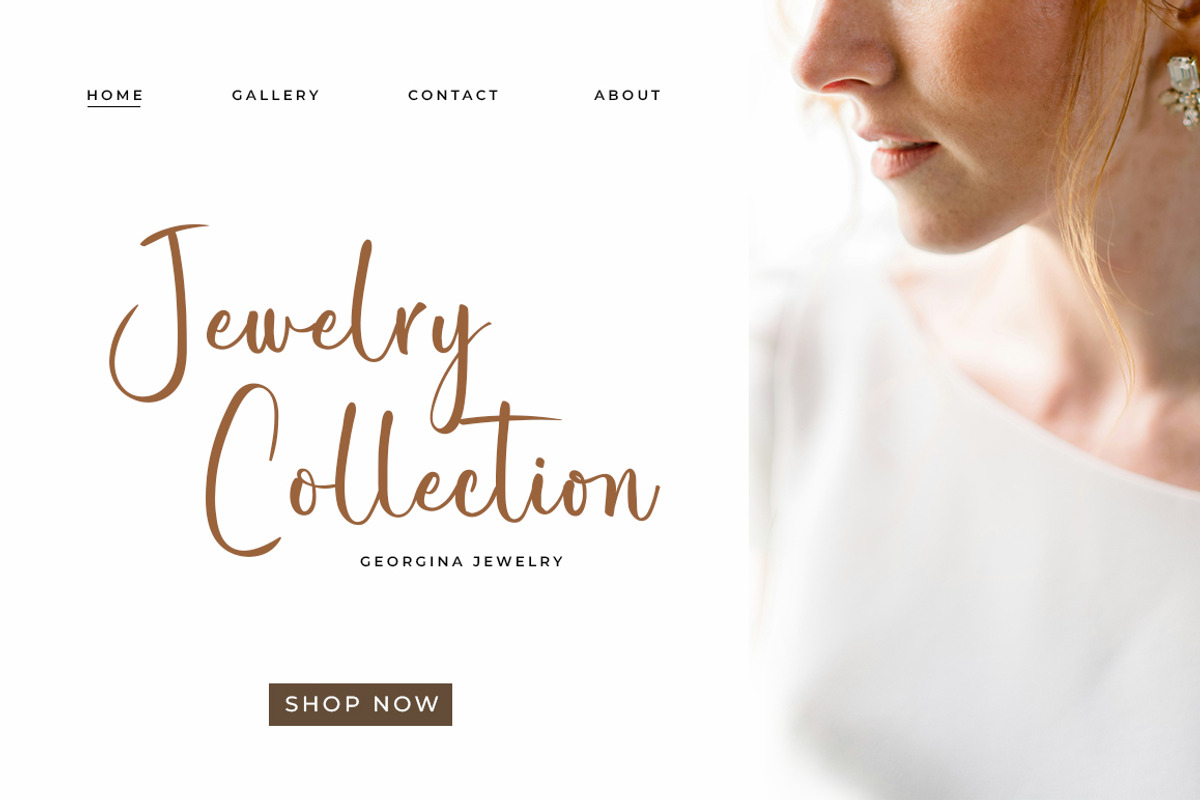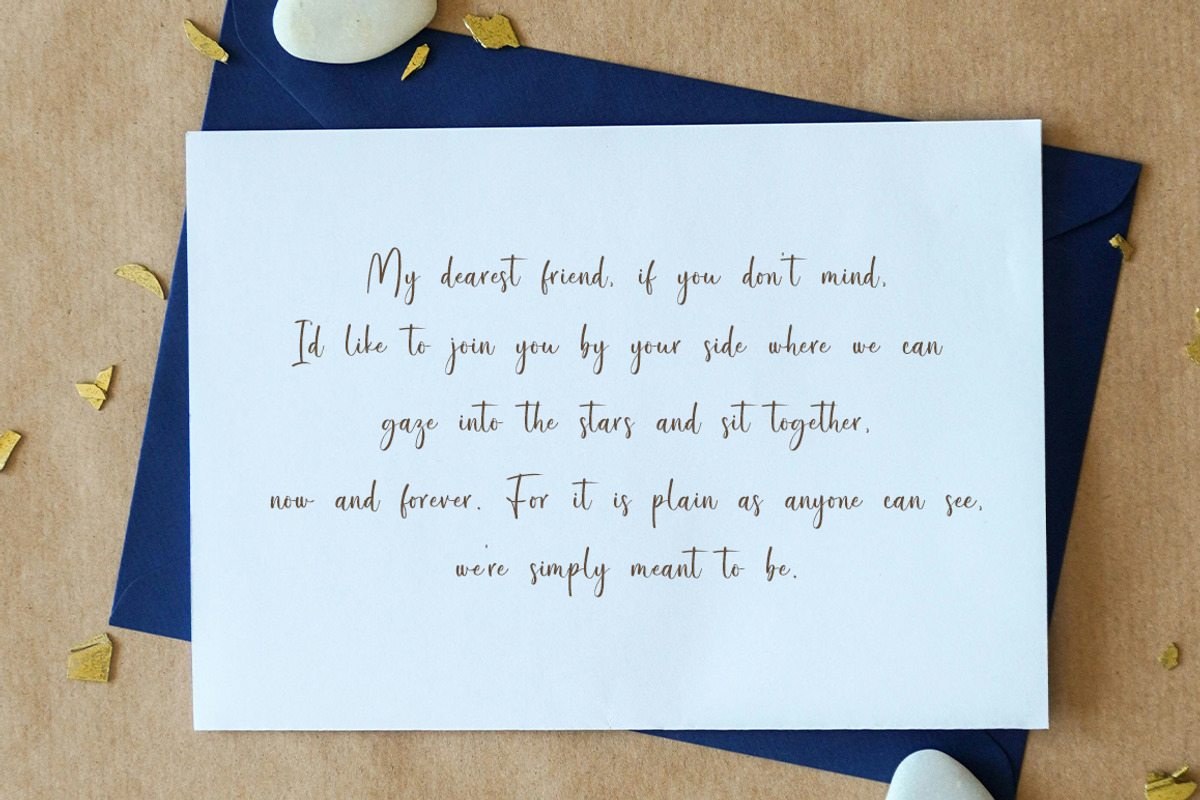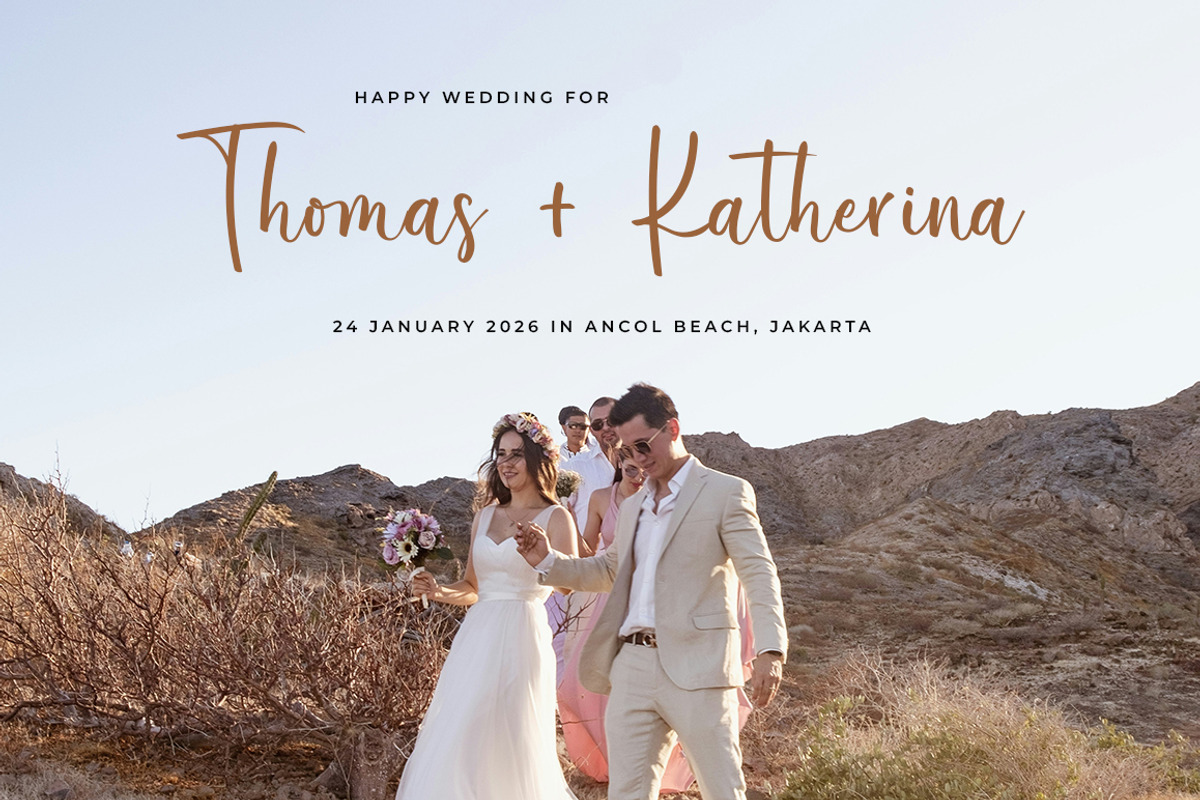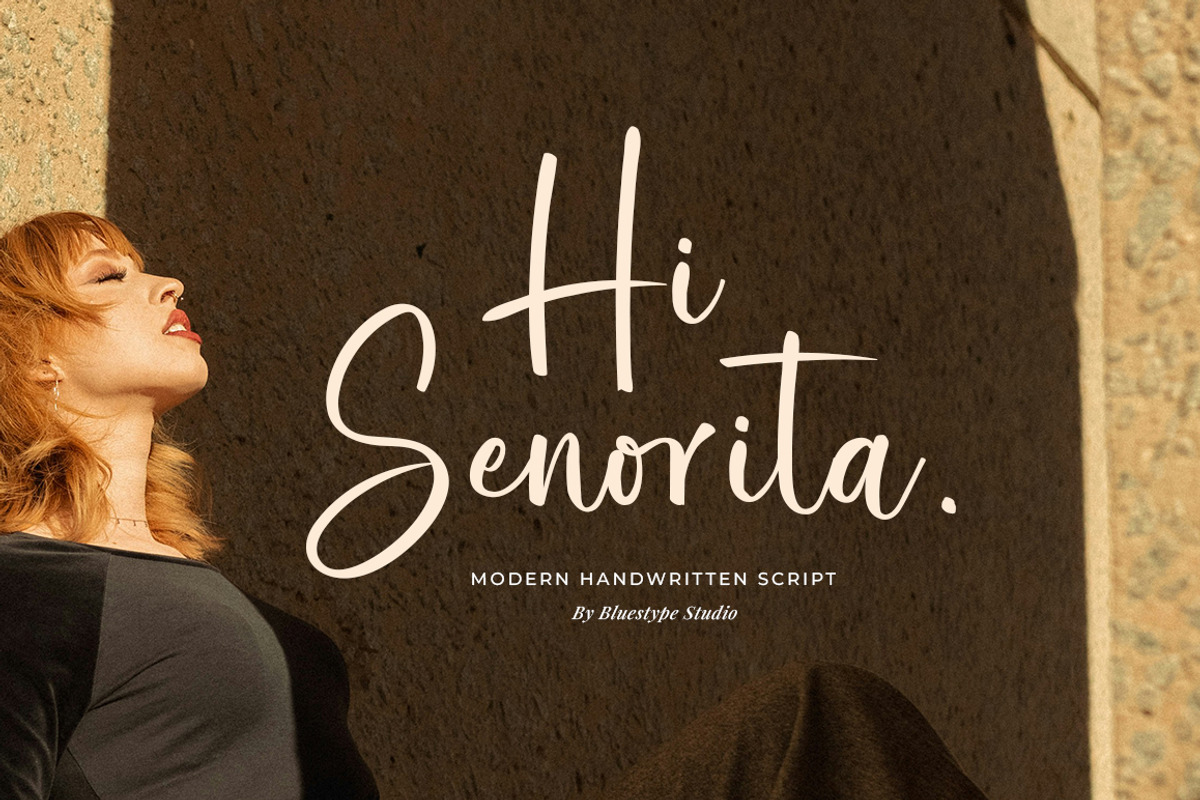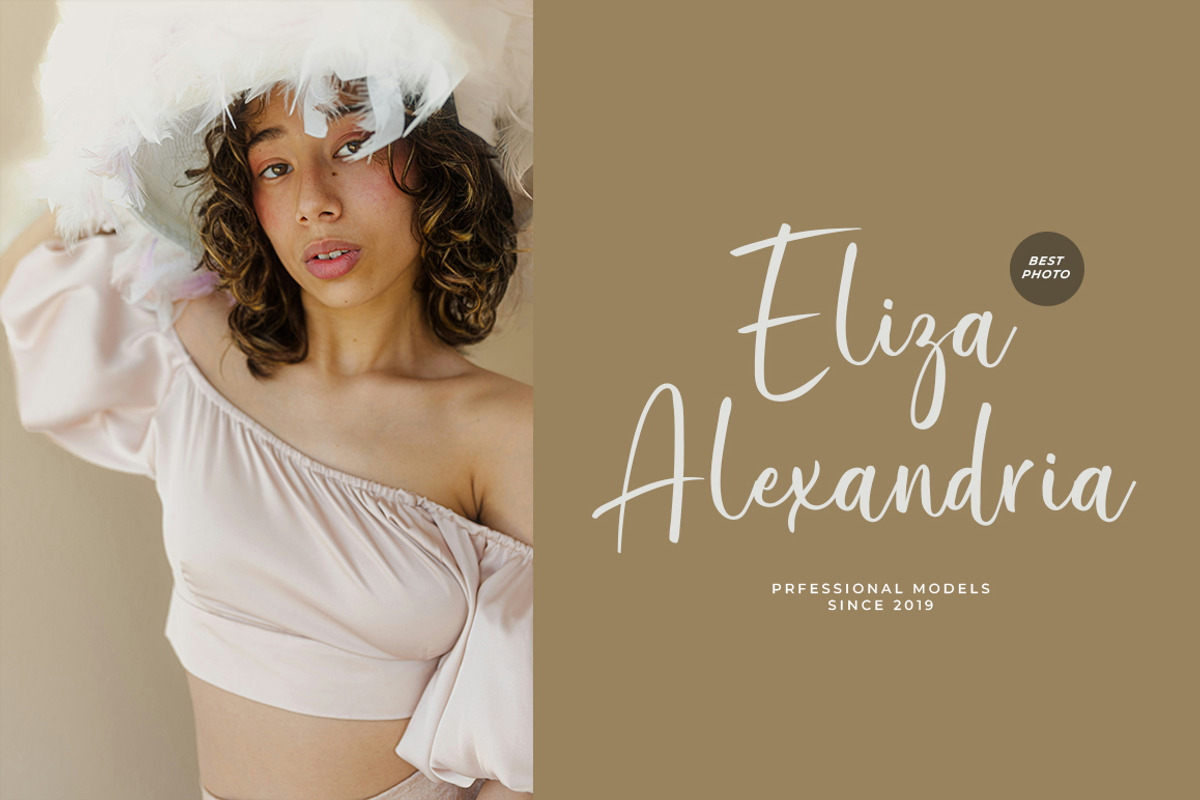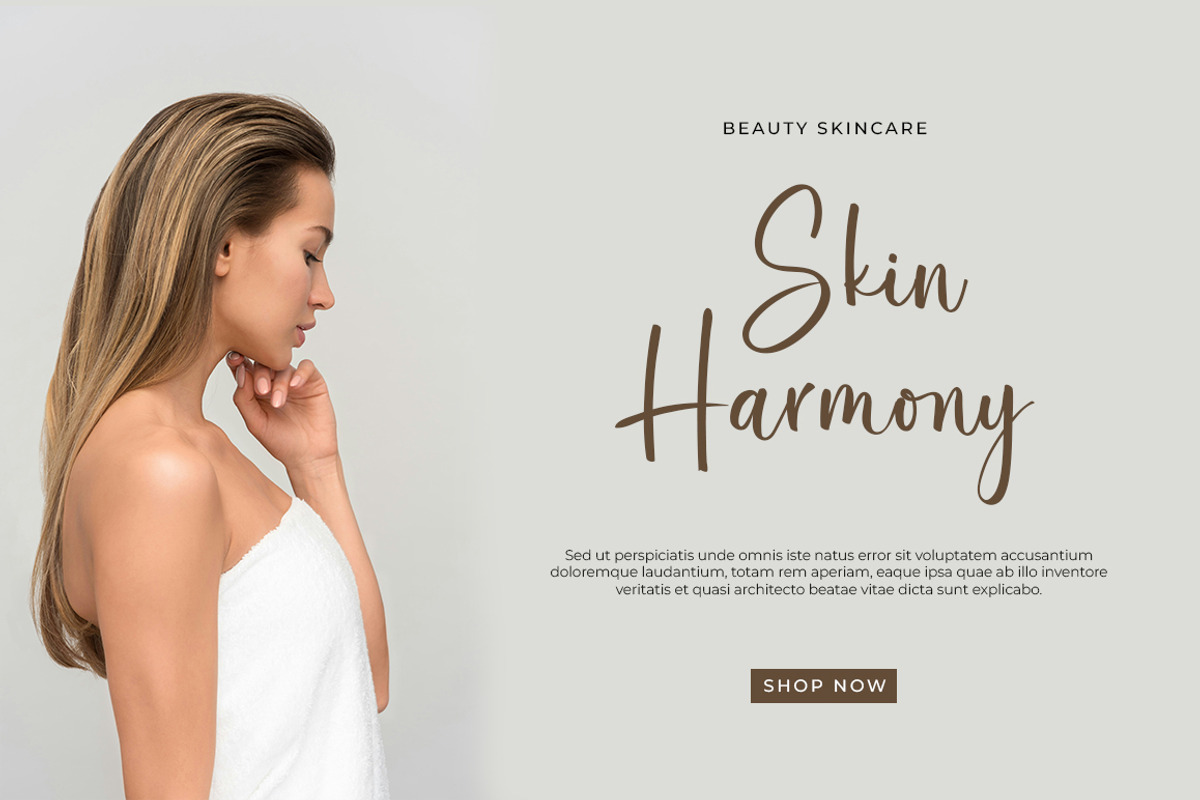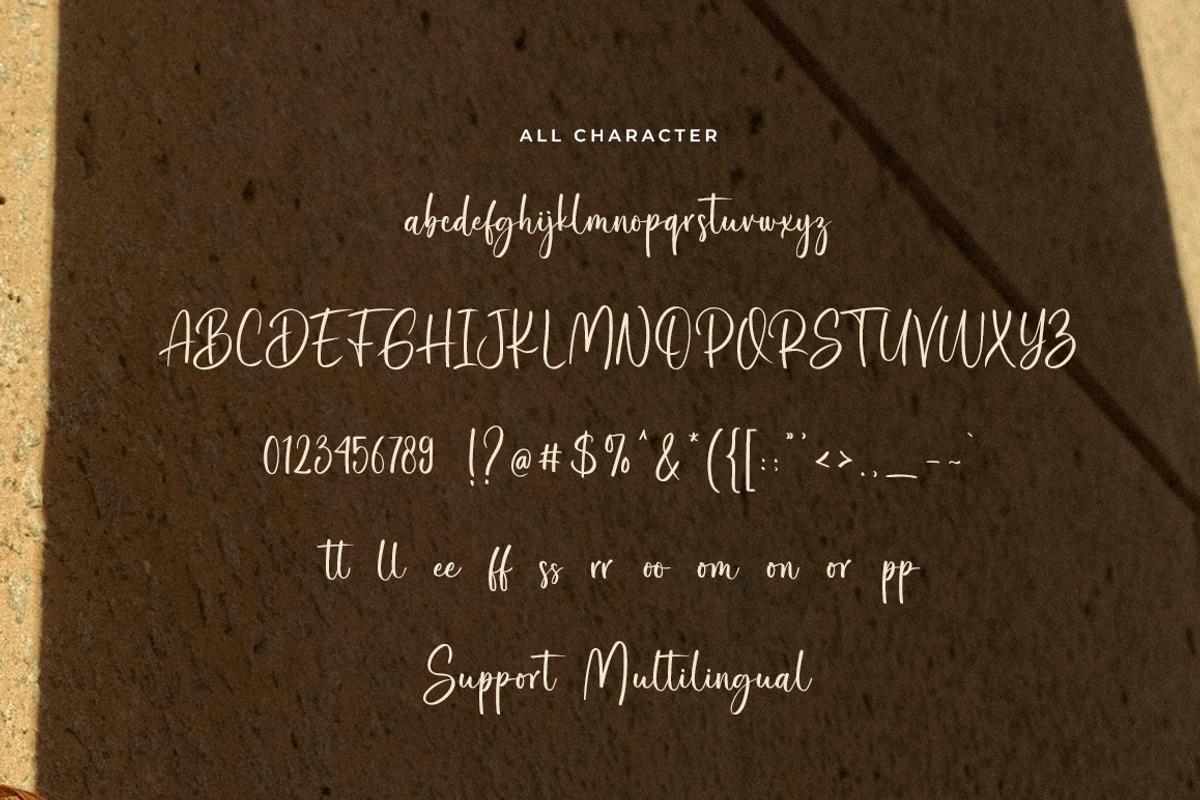
Hi Senorita
Introducing Hi Senorita - Modern Handwritten Script
Hi Senorita is a captivating handwritten font that blends elegance and modernity in every stroke. Perfect for adding a personal and sophisticated touch to your designs, this font effortlessly enhances branding, invitations, logos, and more. With its smooth curves and stylish flair, "Hi Senorita" invites creativity and charm to shine through every project.
- Support Multilingual